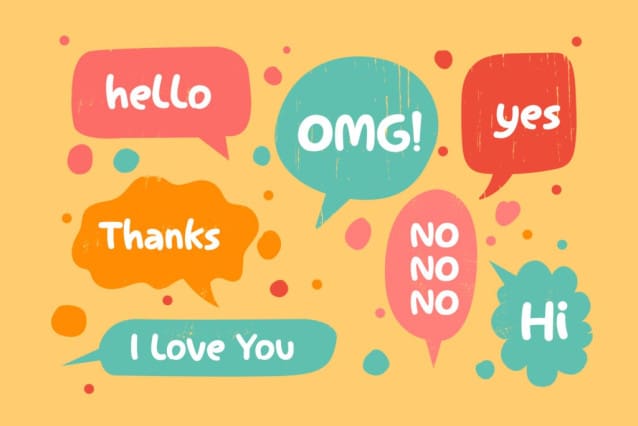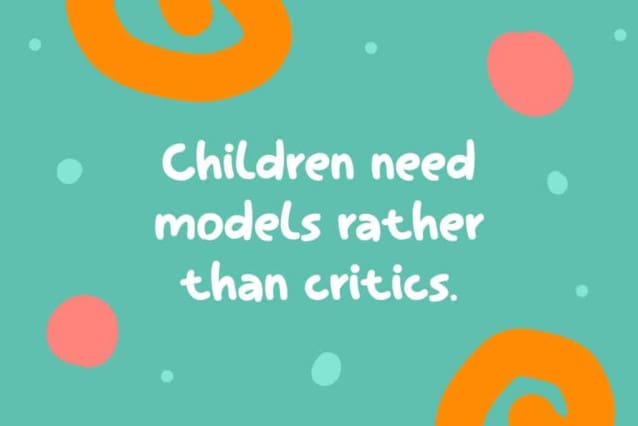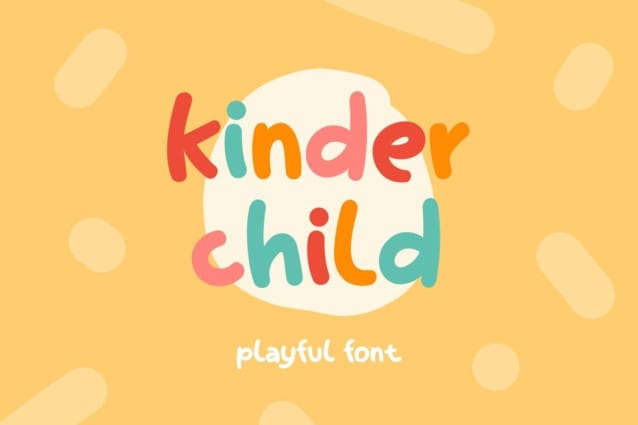
Kinder Child Font
Kinder Child Font. Child Display font that feels beautiful classy, elegant, and modern. This font is perfectly suited for a wide variety of projects, such as signature, stationery, logo, wedding, typography quotes, magazine or book cover, website header, clothing, branding, packaging design, and more. Also for fashion-related branding or editorial design and displays both masculine and feminine qualities.